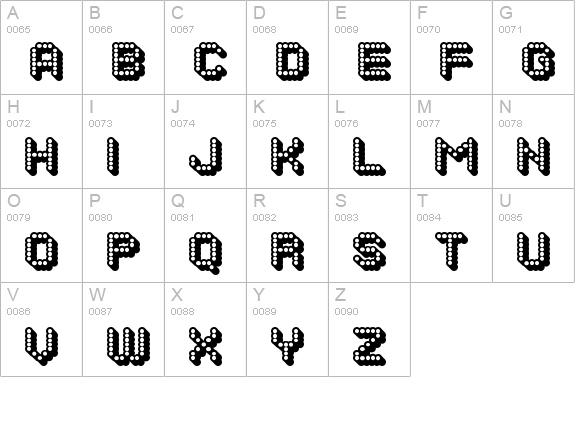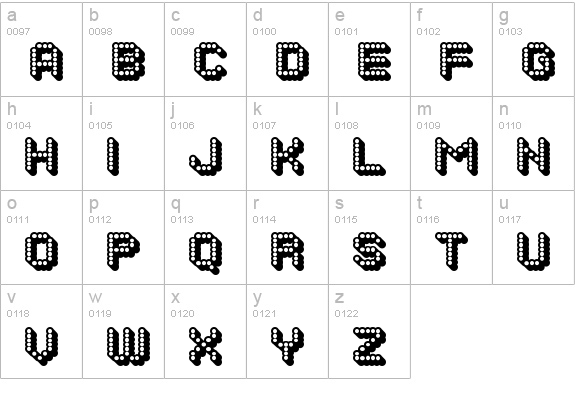
Dots All For Now 3D JL Font Details
Dots All For Now 3D JL font is a striking and dynamic typeface that adds a modern twist to any design project. Featuring a unique 3D effect and playful dot patterns, this font exudes creativity and energy. Perfect for poster designs, branding, or any project that needs a touch of whimsy. What's even better is that Dots All For Now 3D JL font is available for free download at FontsMarket.com. Simply head over to the website and get your hands on this eye-catching font to elevate your designs to the next level. Don't miss out on the opportunity to add this versatile and stylish font to your collection today!